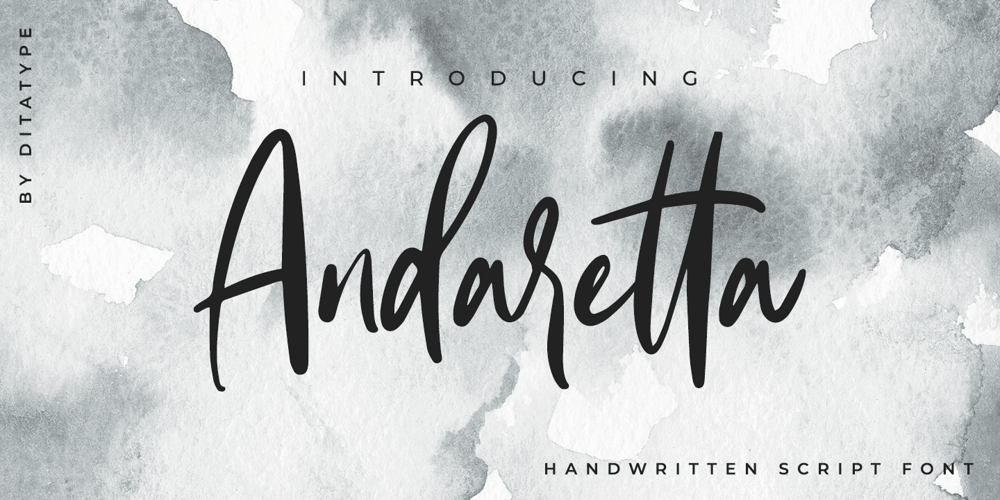
Andaretta Font Family was designed by Donis Miftahudin and published by Ditatype. Andaretta contains 1 styles and family package options. Andaretta is a modern handwritten font. With a classy and natural handwritten style, it brings a classy and chic typeface. Andaretta is best used for weddings, branding, logotype, and quotes.Features: – Beautiful Ligatures – PUA Encoded – Multilingual Support – Numerals and Punctuation